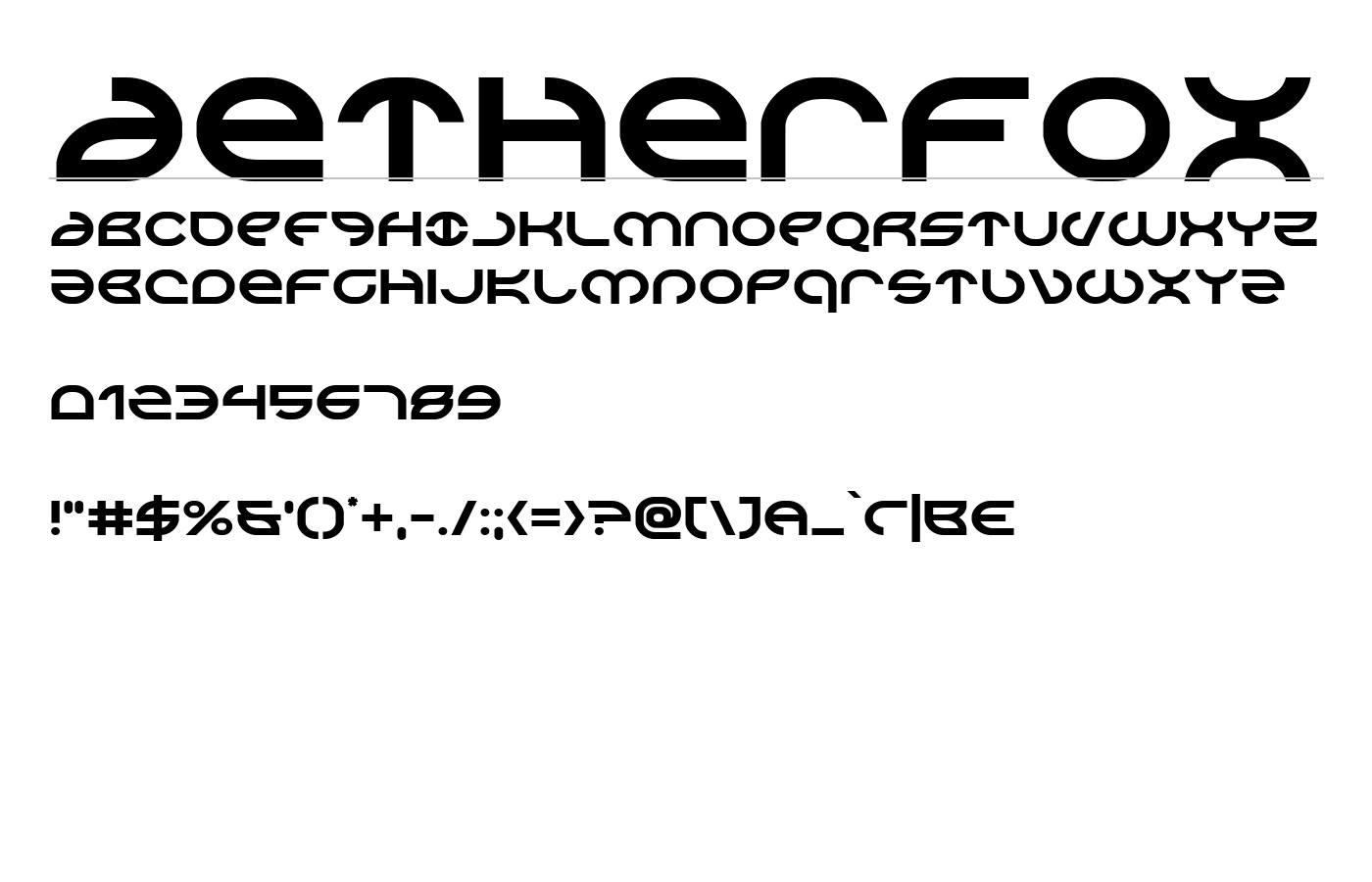
Aetherfox is a bold, modern sans serif font with a futuristic and geometric design. Its clean lines, uniform stroke weight, and unique letterforms give it a tech-savvy, innovative feel, making it ideal for branding, headlines, and digital projects looking to convey a cutting-edge or sci-fi vibe. This font works especially well in logos and display uses where a sleek, contemporary impression is desired.
Aetherfox Font